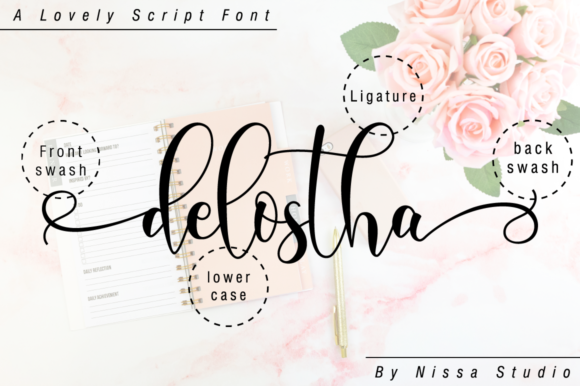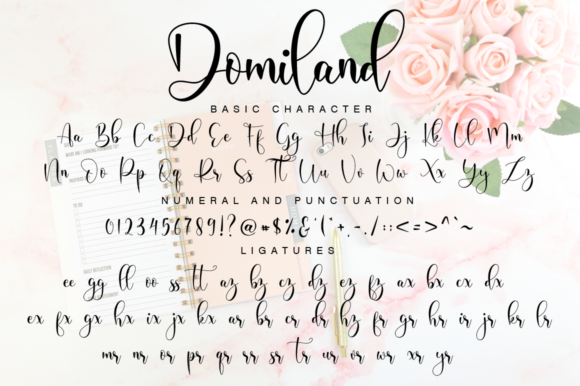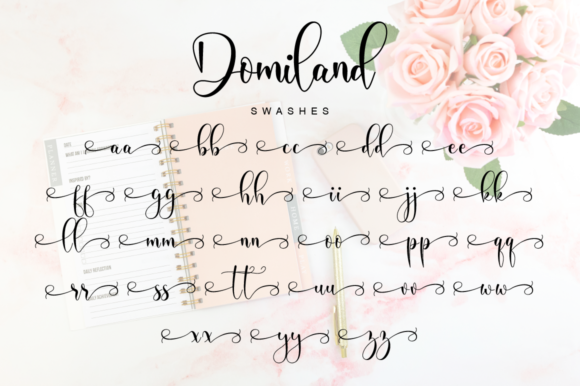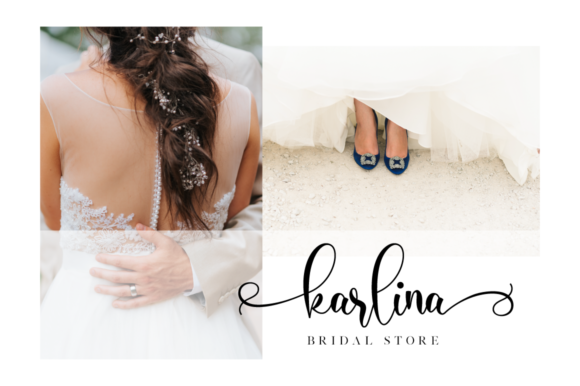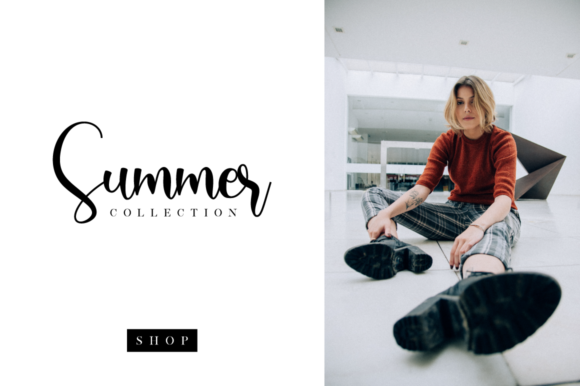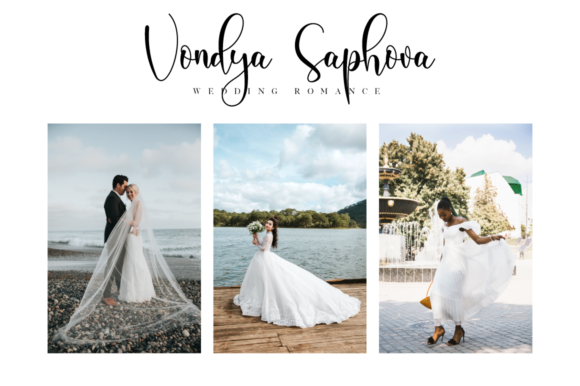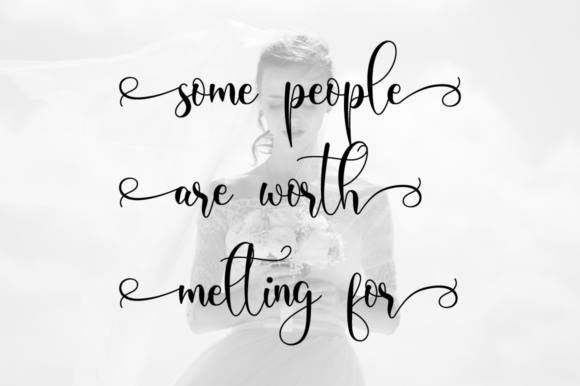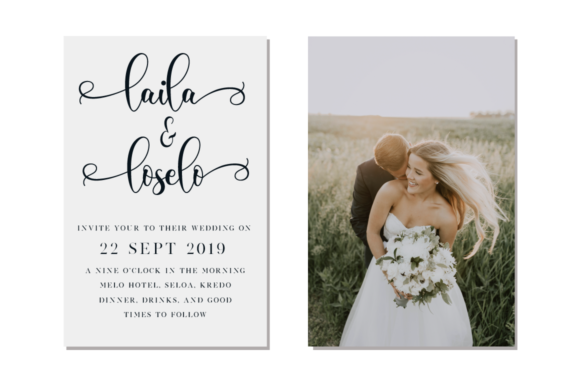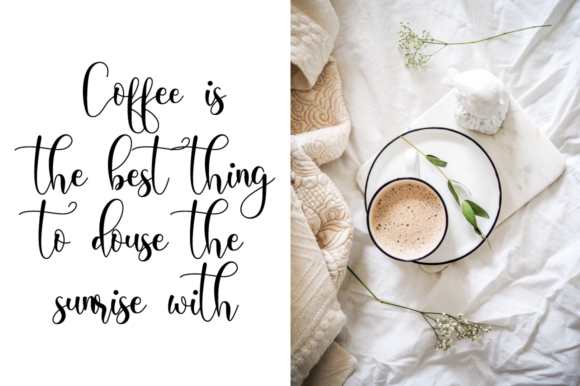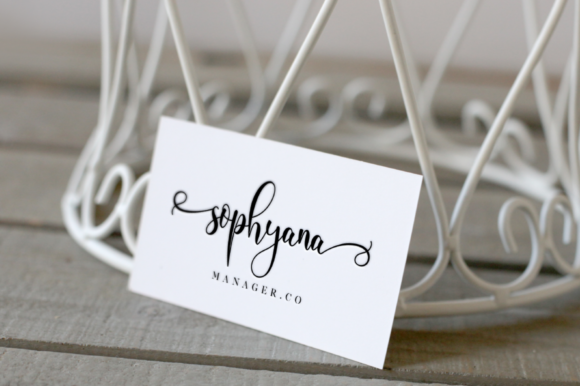
Domiland Font
About Domiland Font
Domiland is a beautiful script font that has a classy, elegant, and modern look. Fall in love with its flowing curves!